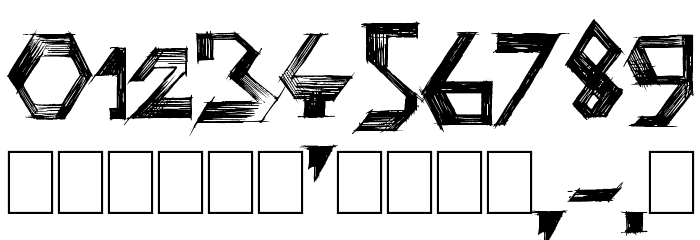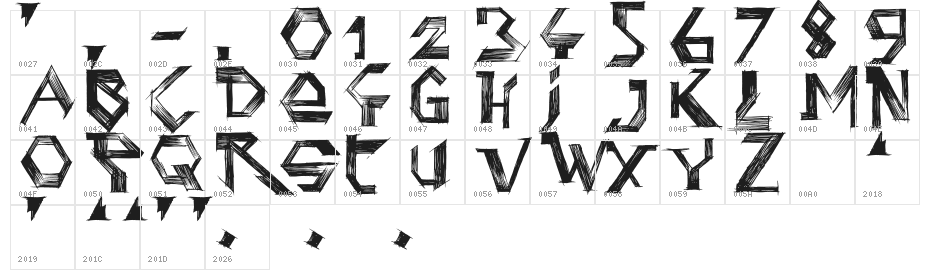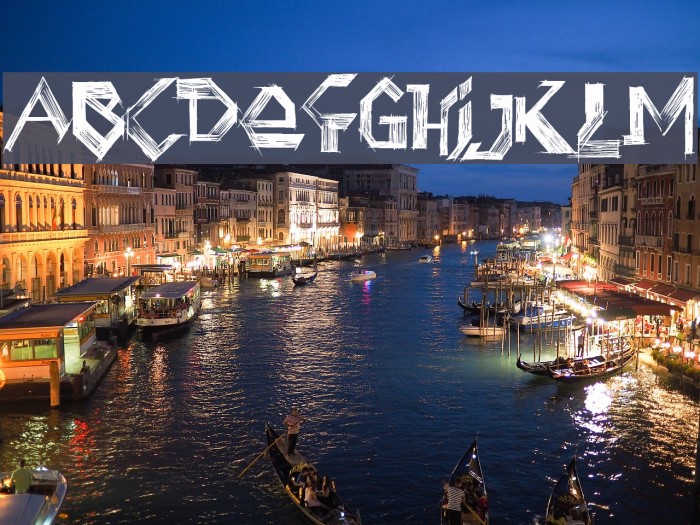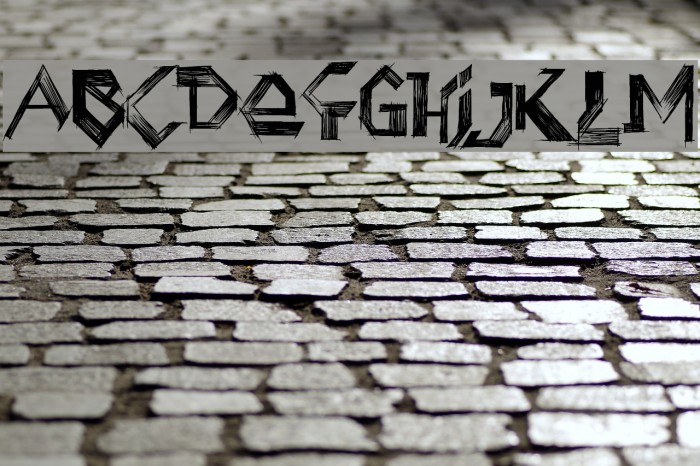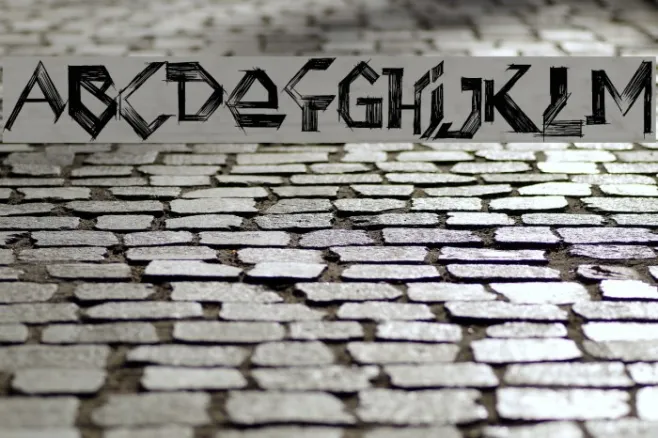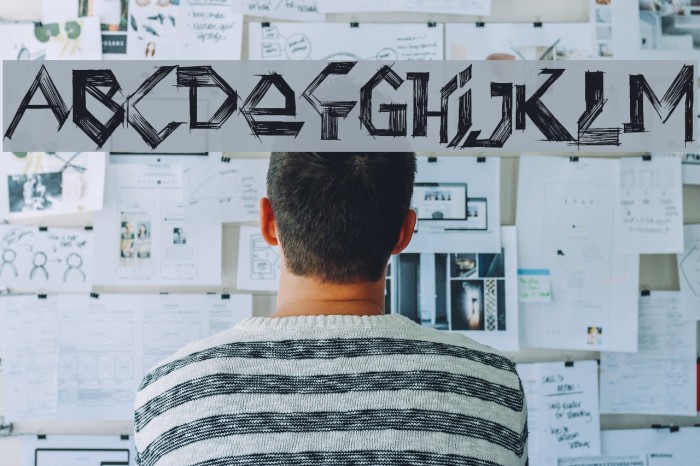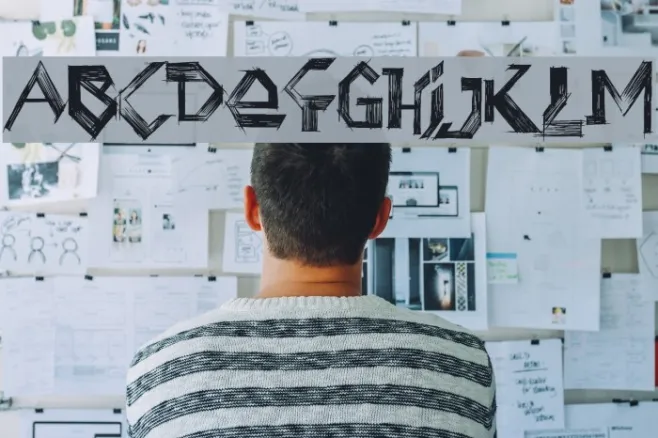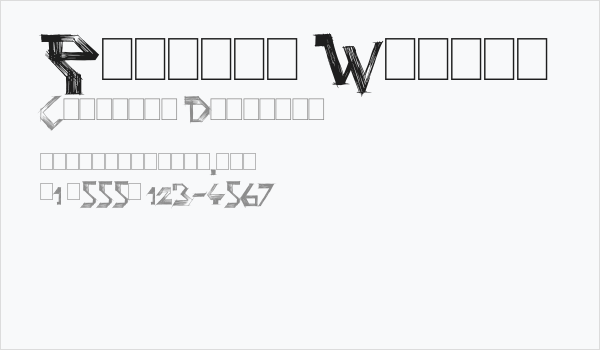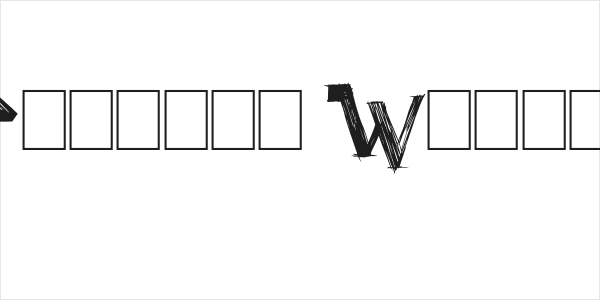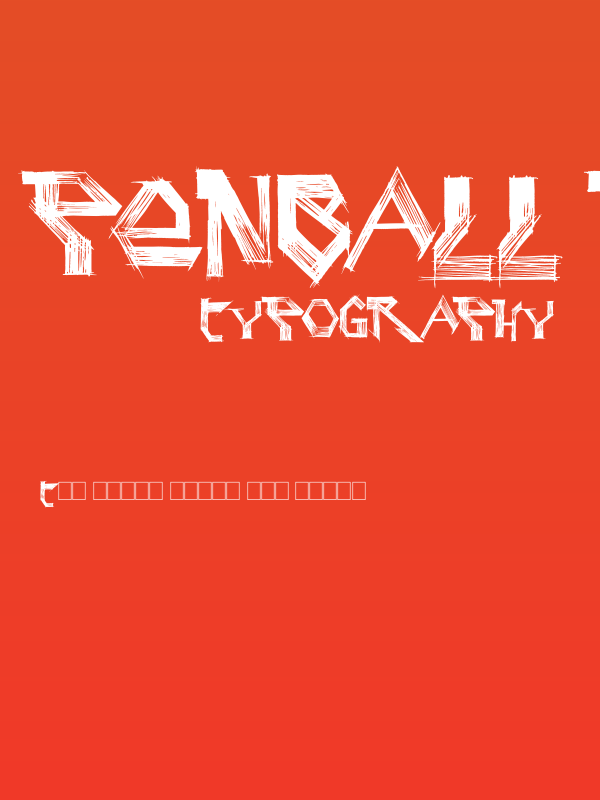
Penball Wizard Font
Penball Wizard Description
This font features a highly stylized and edgy design, characterized by its jagged, sketch-like strokes that give it a chaotic yet artistic appearance. The uppercase letters are bold and angular, with sharp edges and irregular line work that creates a sense of movement and energy. The numbers follow a similar style, maintaining the dynamic and rough aesthetic. This font is not suitable for body text due to its complex and decorative nature, but it excels in making a bold statement in headlines or artistic projects. The overall impression is one of modernity and rebellion, making it ideal for creative and unconventional designs.
| Overall Style | Modern, Edgy, Artistic |
| Use Case | Headlines, Artistic projects, Branding |
| Proposed Projects | Album covers, poster designs, street art-inspired graphics, edgy branding materials. |